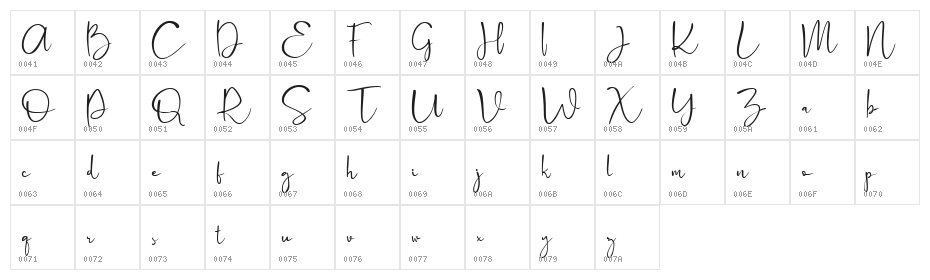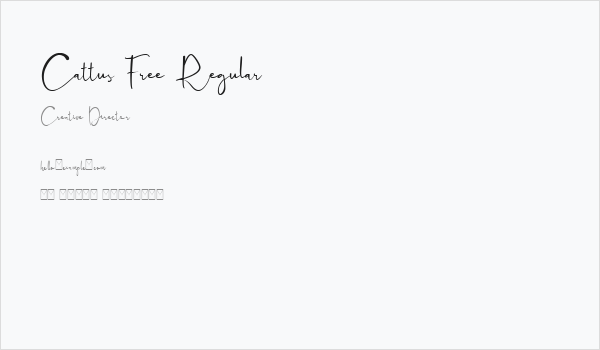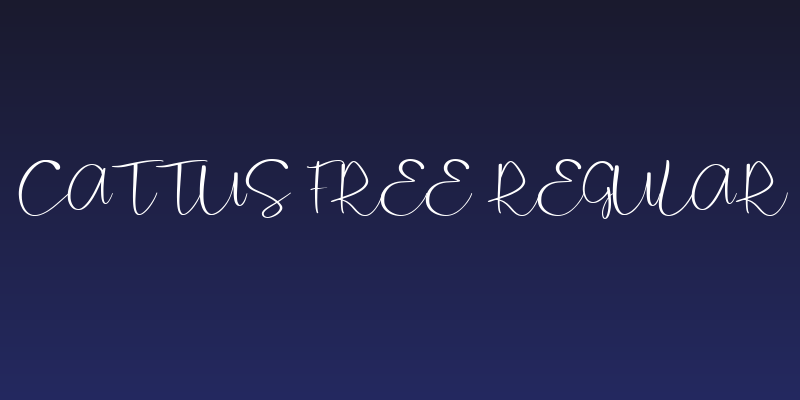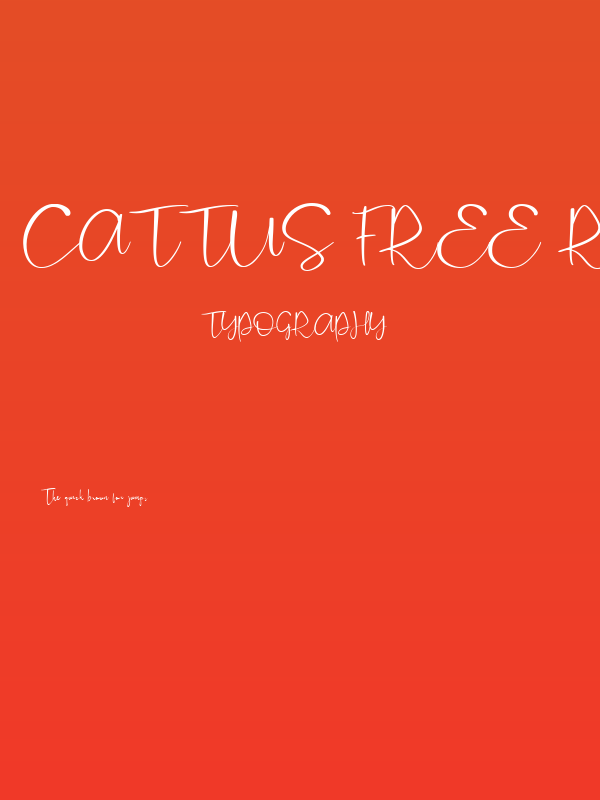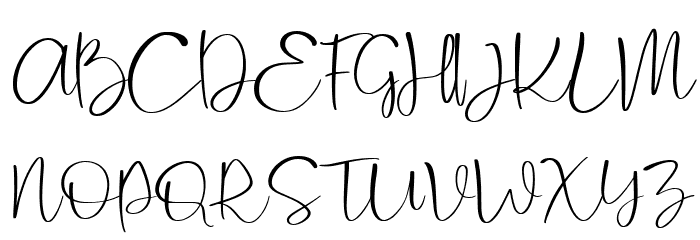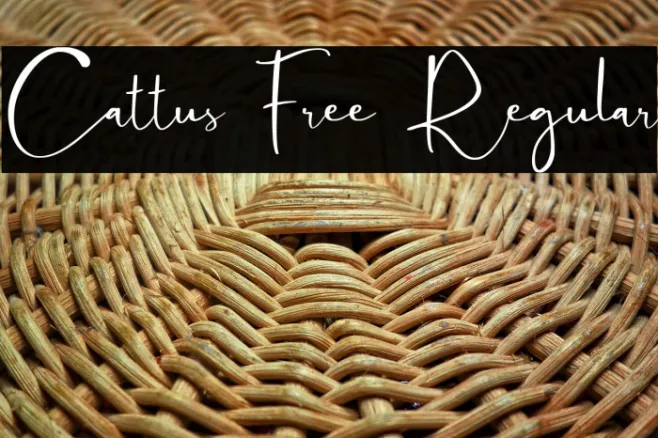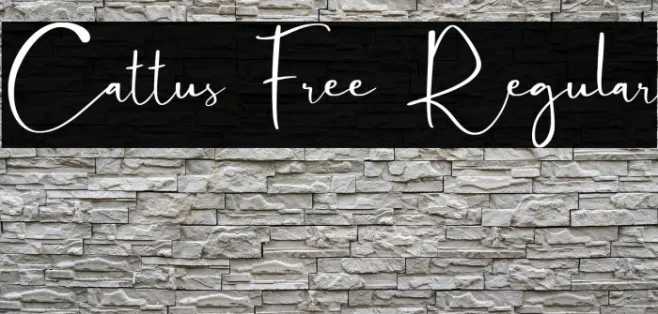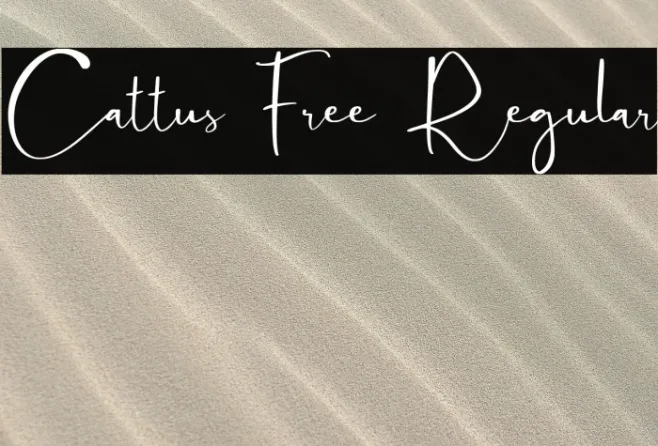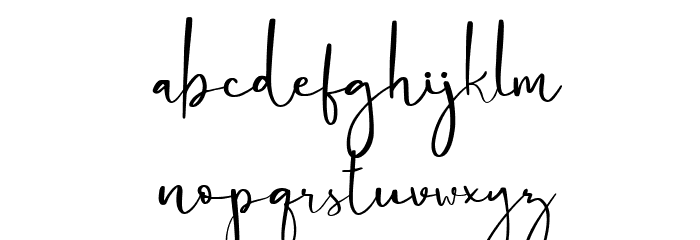
Cattus Free Regular Font
Cattus Free Regular Description
This font features an elegant and flowing script style, characterized by its smooth, cursive letterforms. The uppercase letters exhibit a graceful, looping design, while the lowercase letters maintain a consistent fluidity, enhancing its handwritten appeal. The strokes vary in thickness, providing a dynamic and lively appearance. The font's overall aesthetic is both sophisticated and approachable, making it suitable for a variety of creative applications. Its unique charm lies in the seamless connection between characters, which adds a personal touch to any text.
| Use Case | Logos, Invitations, Personal projects |
| Proposed Projects | Ideal for wedding invitations, greeting cards, branding, and personal projects that require a touch of elegance. |